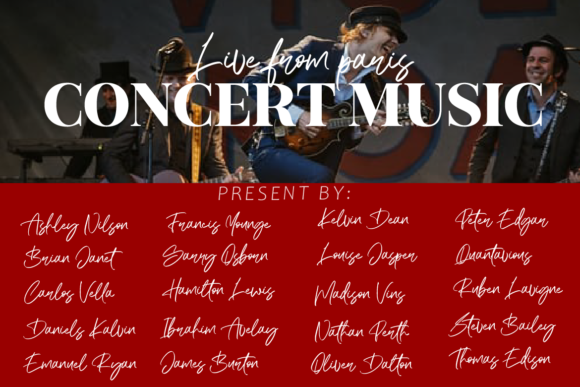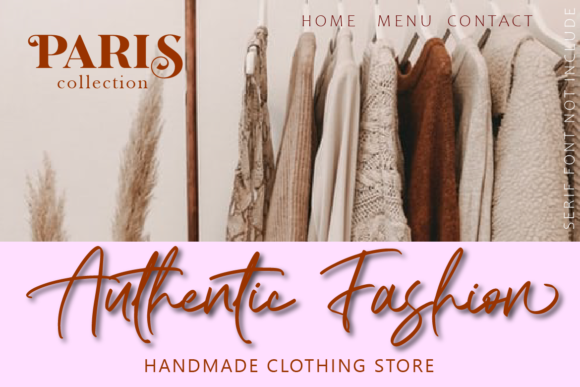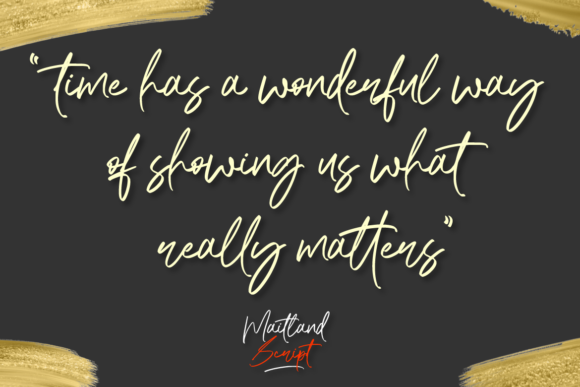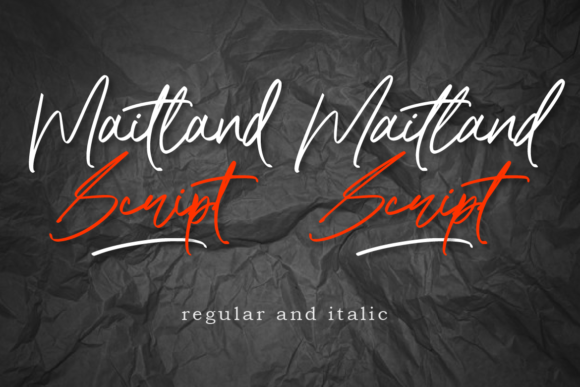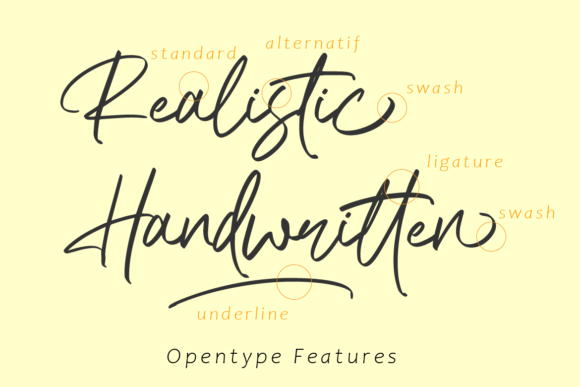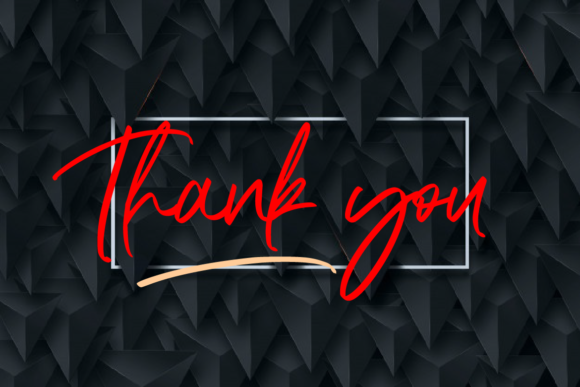
About Maitland Font
Maitland is an enchanting handwritten font. This versatile script font has a wide spectrum of applications ranging from greeting cards to headlines and is guaranteed to add a romantic feel to your next project.